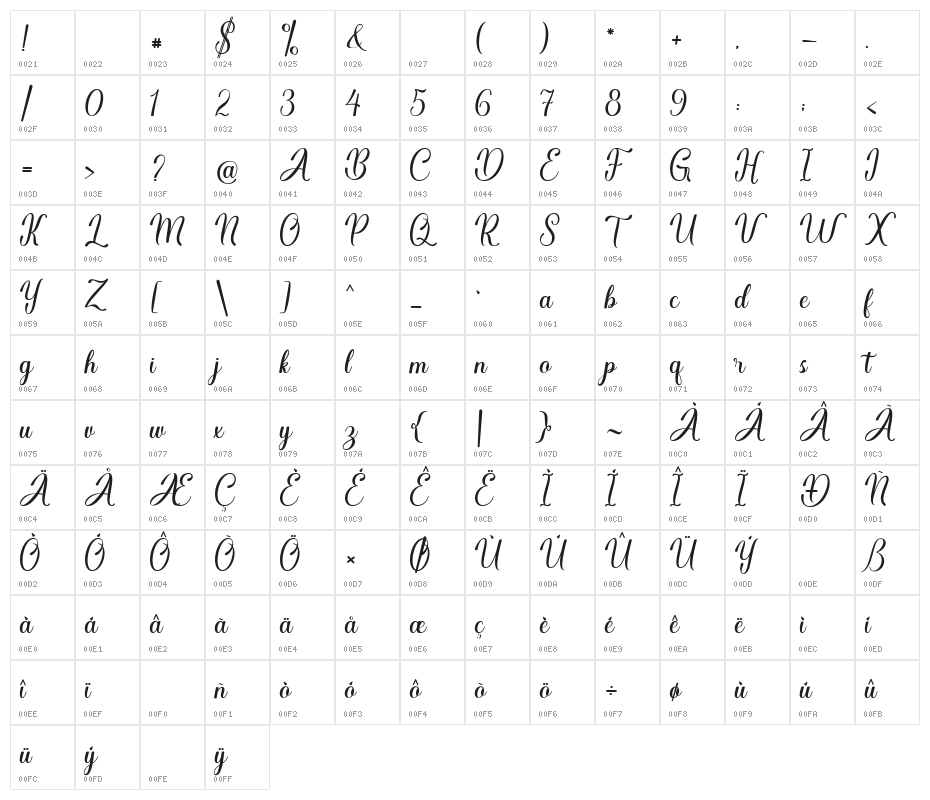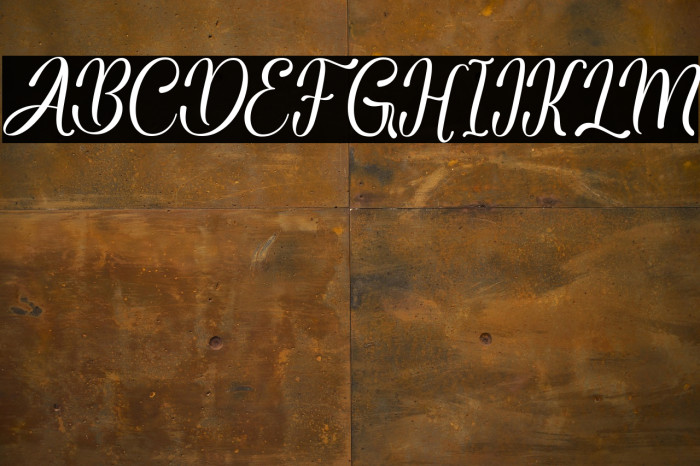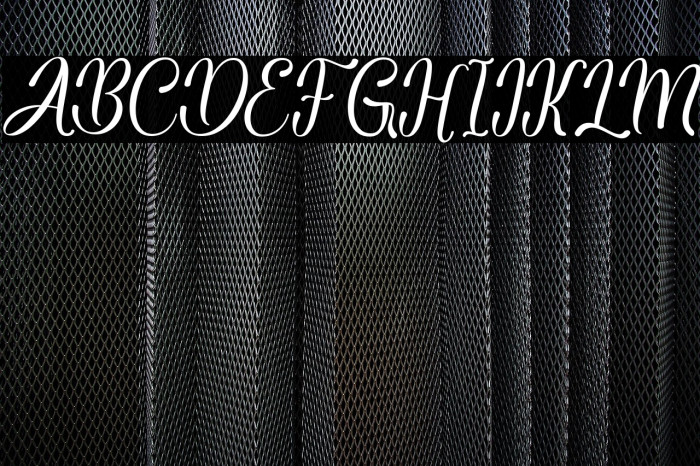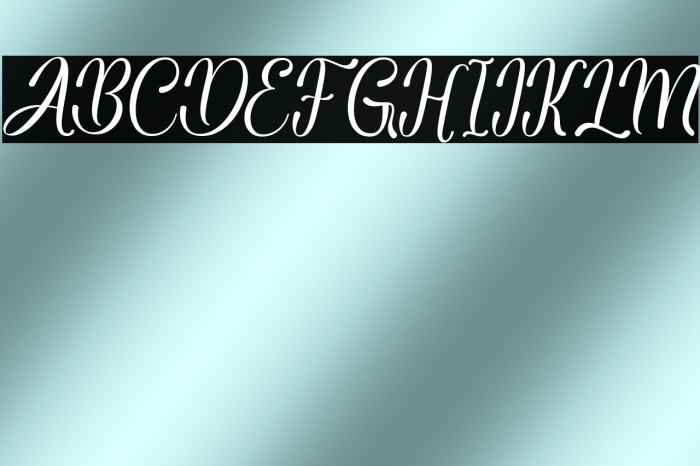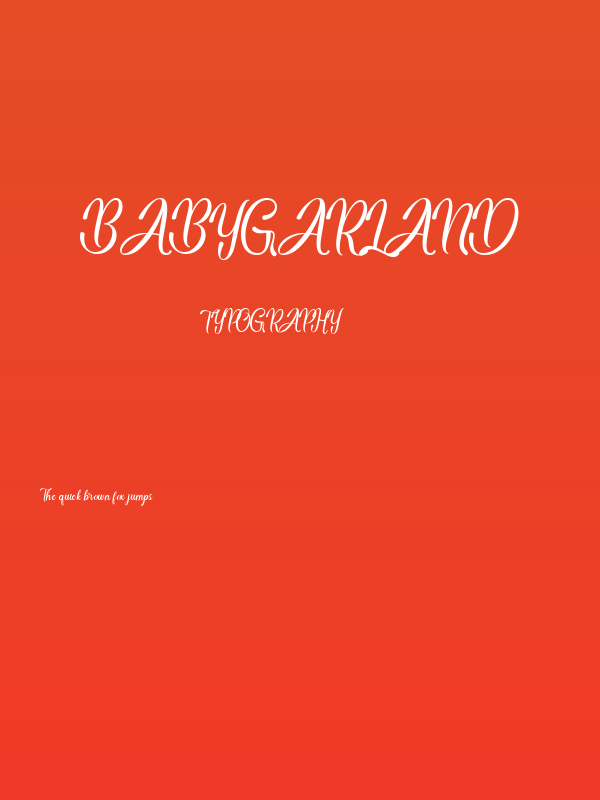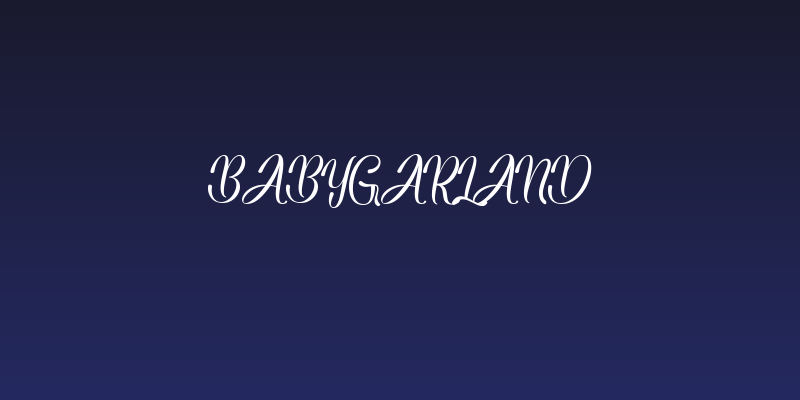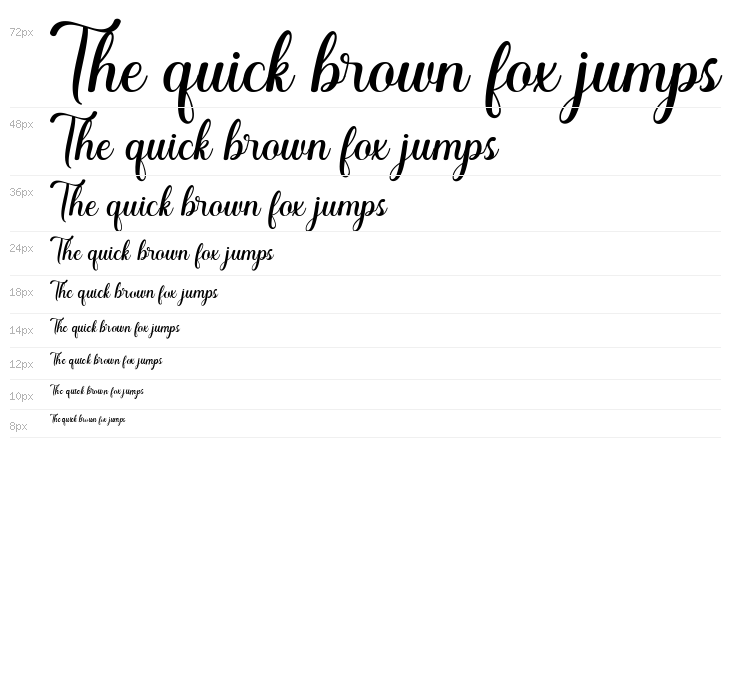
BabyGarland Font
BabyGarland Description
This font features a flowing, cursive style with elegant loops and swashes, giving it a sophisticated and artistic appearance. The uppercase letters are bold and prominent, while the lowercase letters maintain a graceful and fluid form. Numbers are designed with a similar flair, ensuring consistency throughout. The special characters are crafted to match the overall aesthetic, making this font suitable for decorative purposes. Its script-like nature adds a personal touch, ideal for projects that require a handwritten feel.